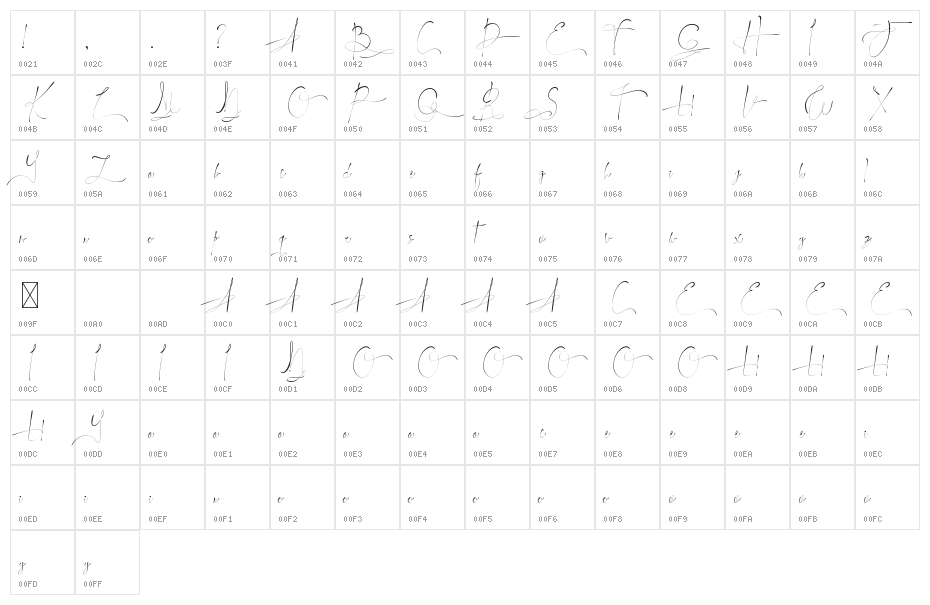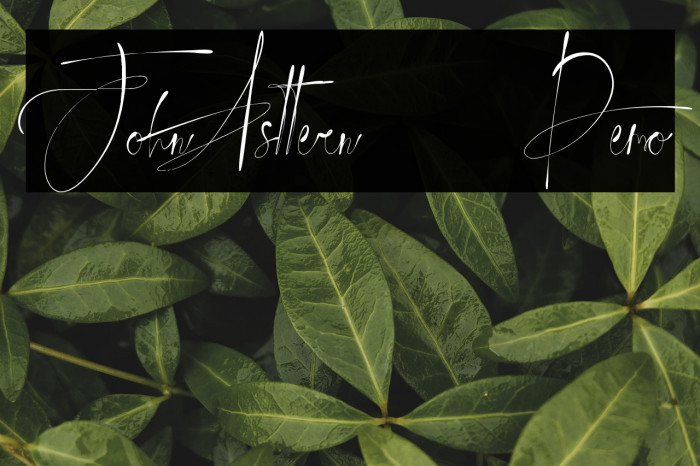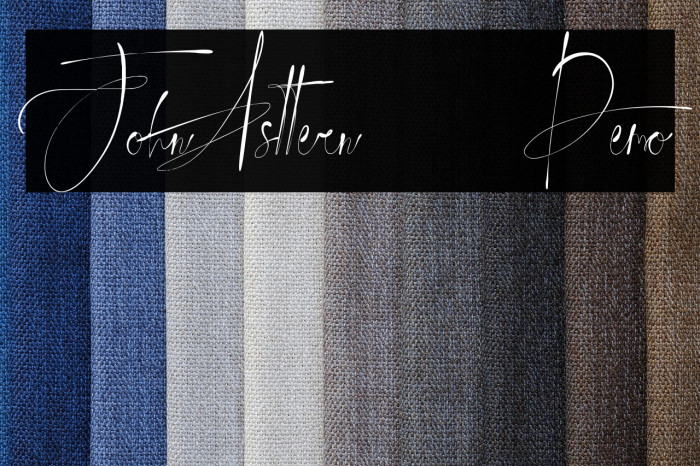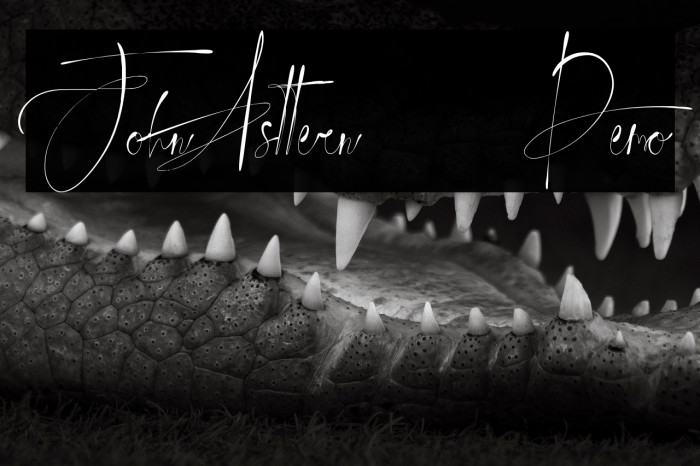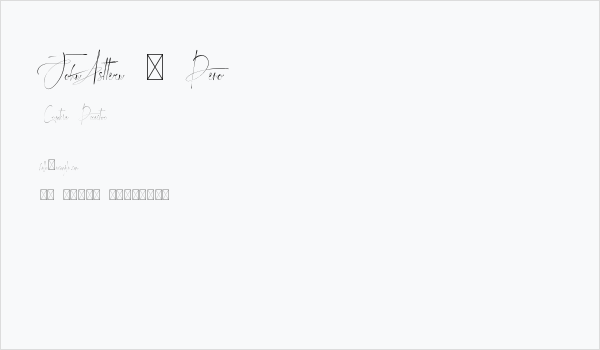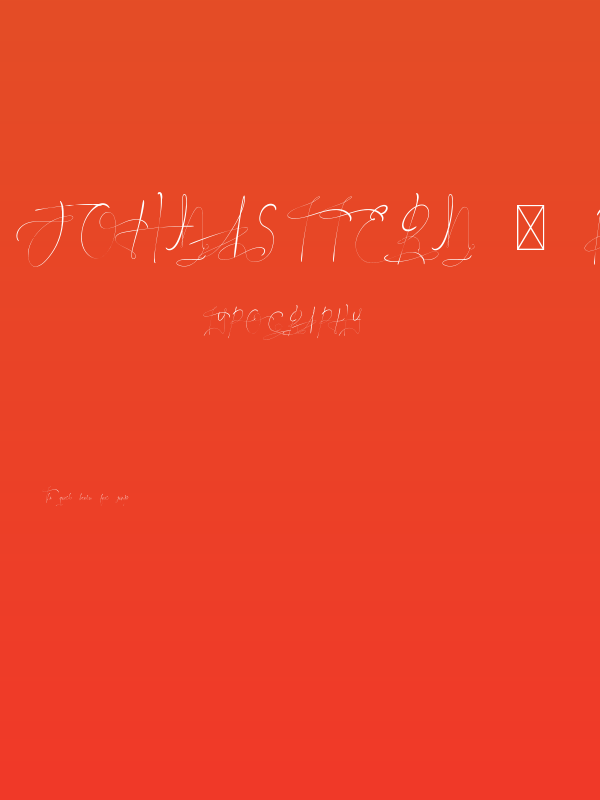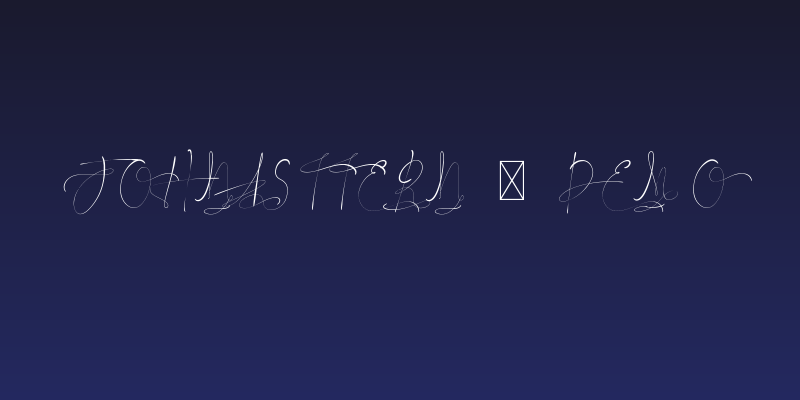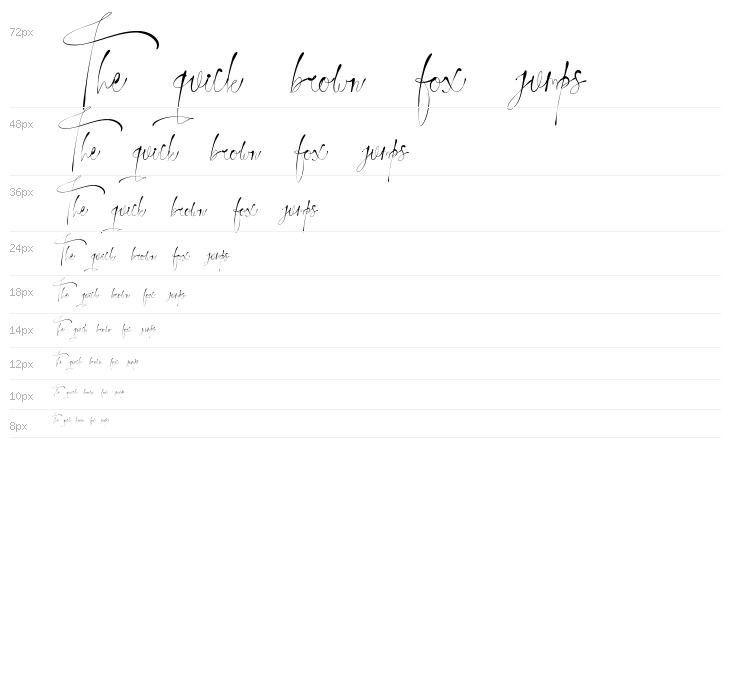
JohnAsttern - Demo Font
JohnAsttern - Demo Description
This font features an elegant and flowing script style, characterized by its intricate and delicate strokes. The uppercase letters are highly decorative, with elaborate swirls and loops that give a sense of sophistication and artistry. The lowercase letters maintain a consistent cursive style, offering a harmonious blend of readability and flair. The numbers and special characters are designed to complement the overall aesthetic, ensuring a cohesive look across all text elements. This font is ideal for projects that require a touch of elegance and refinement.